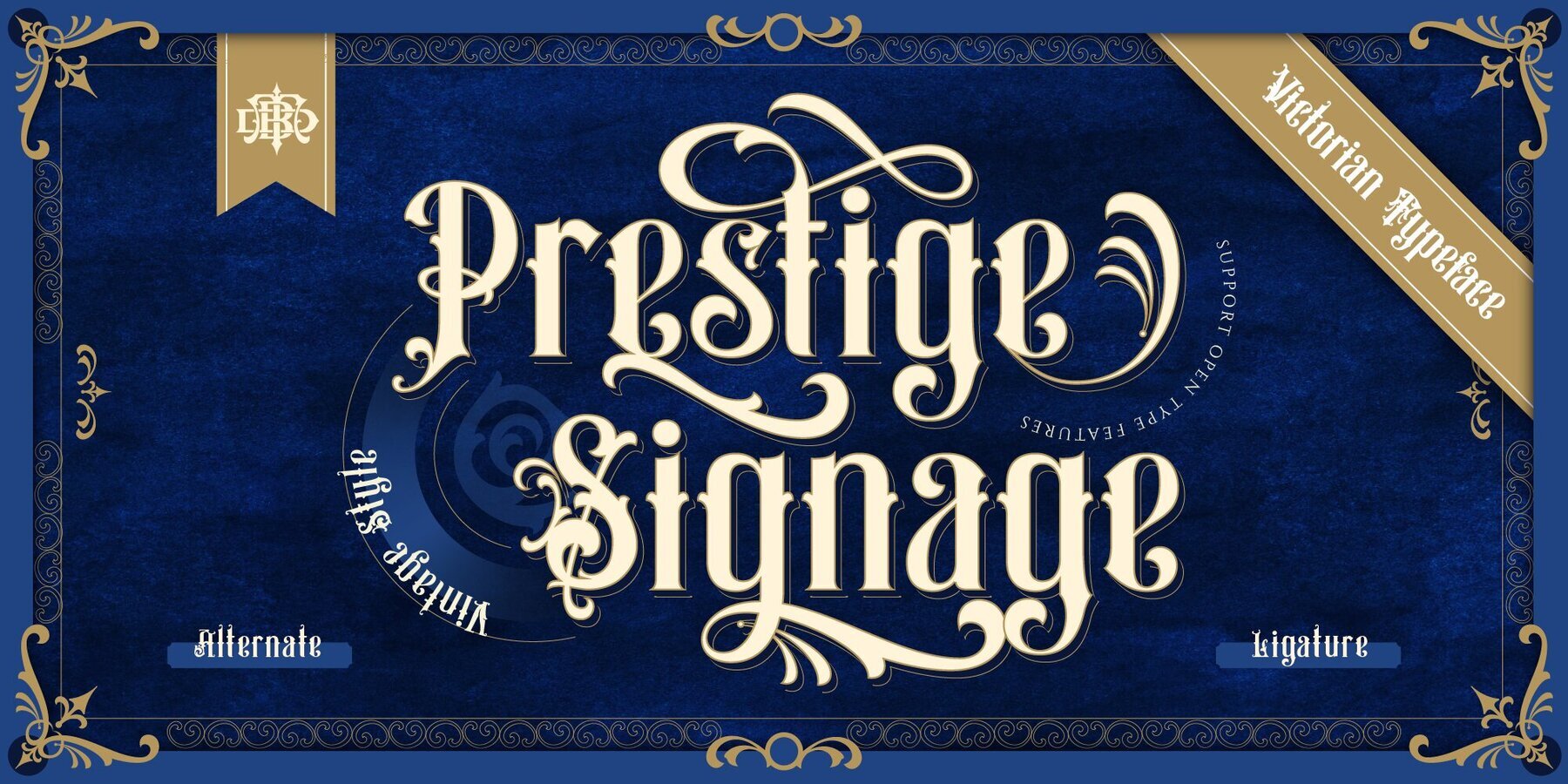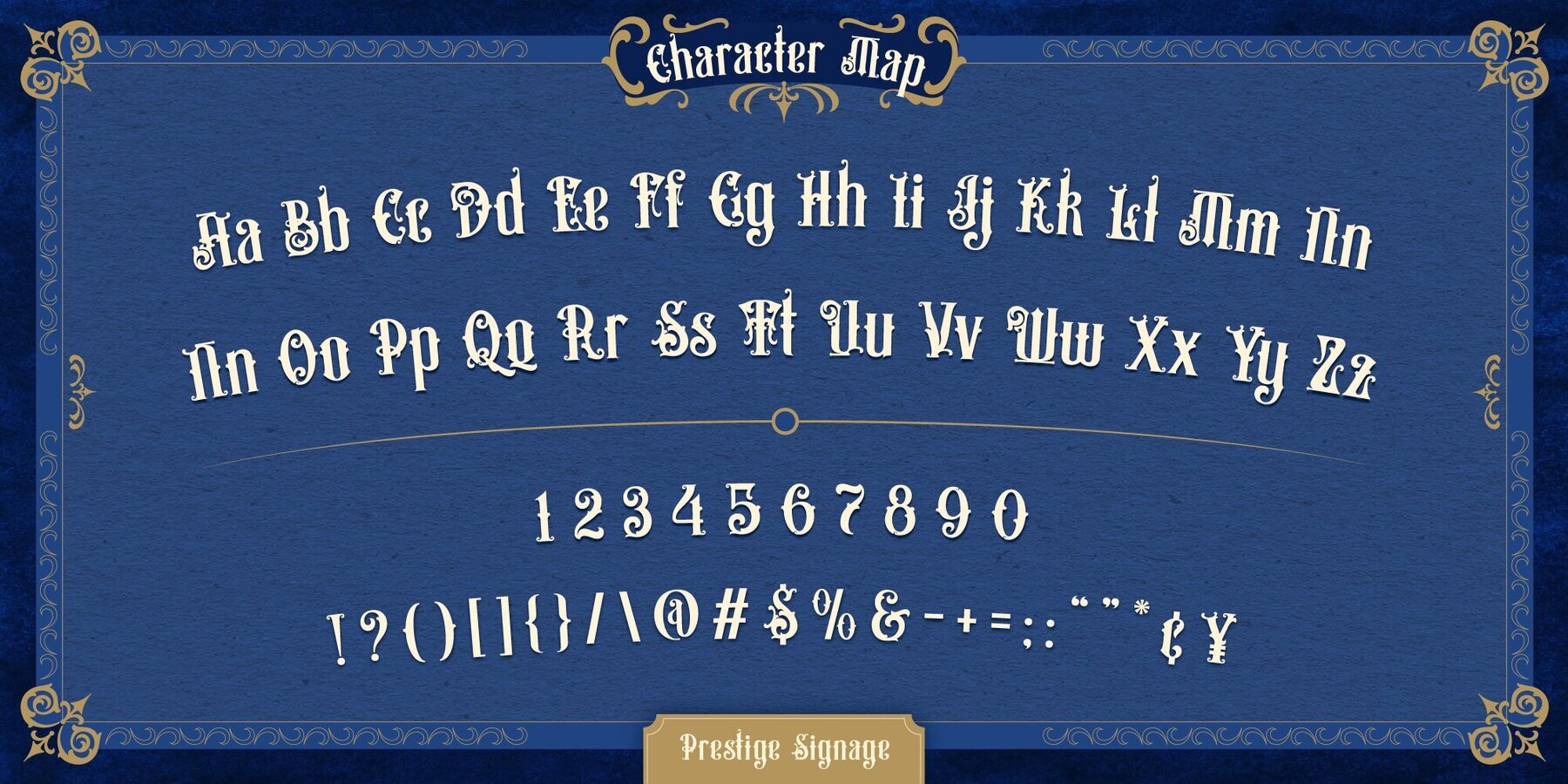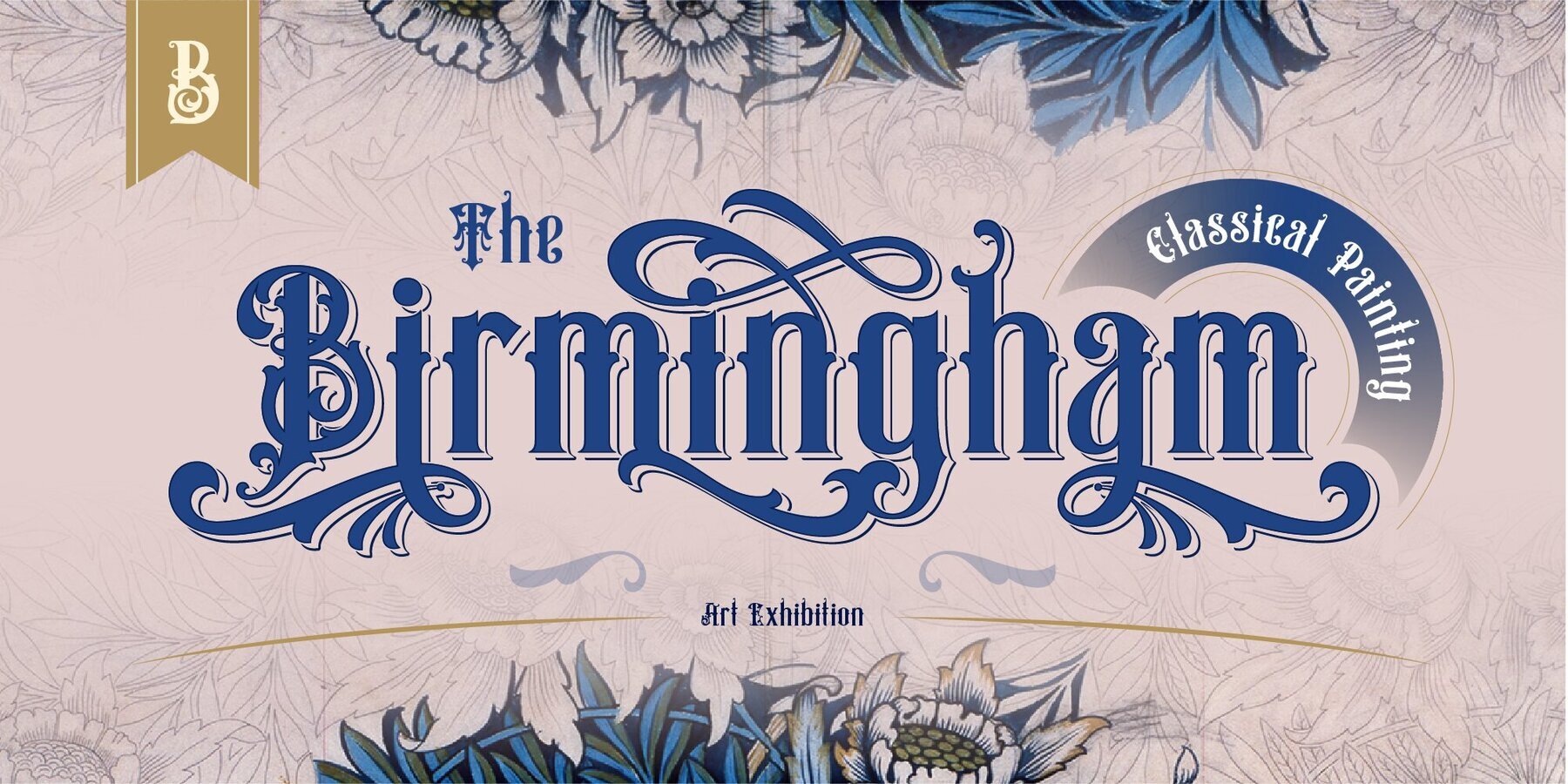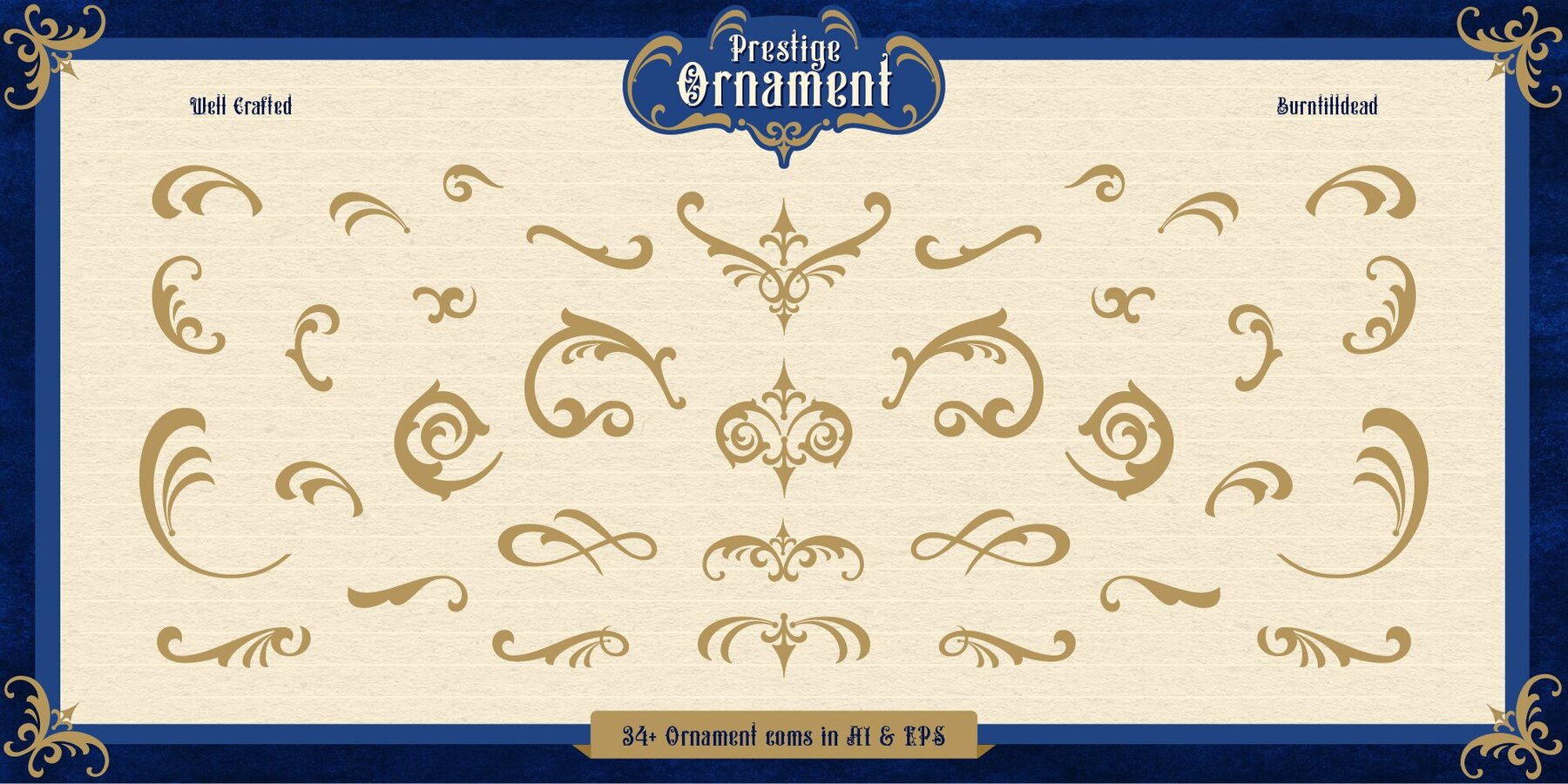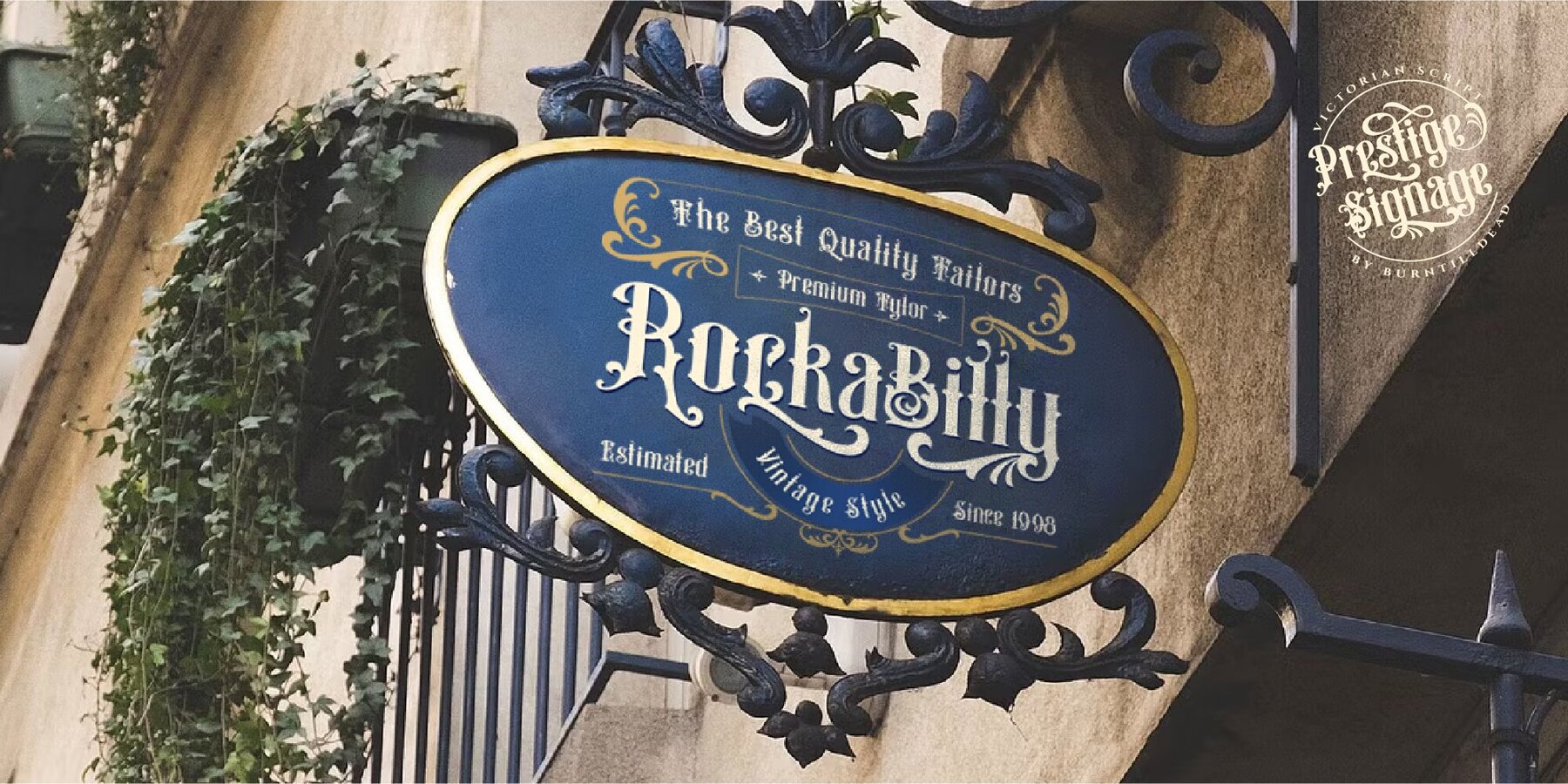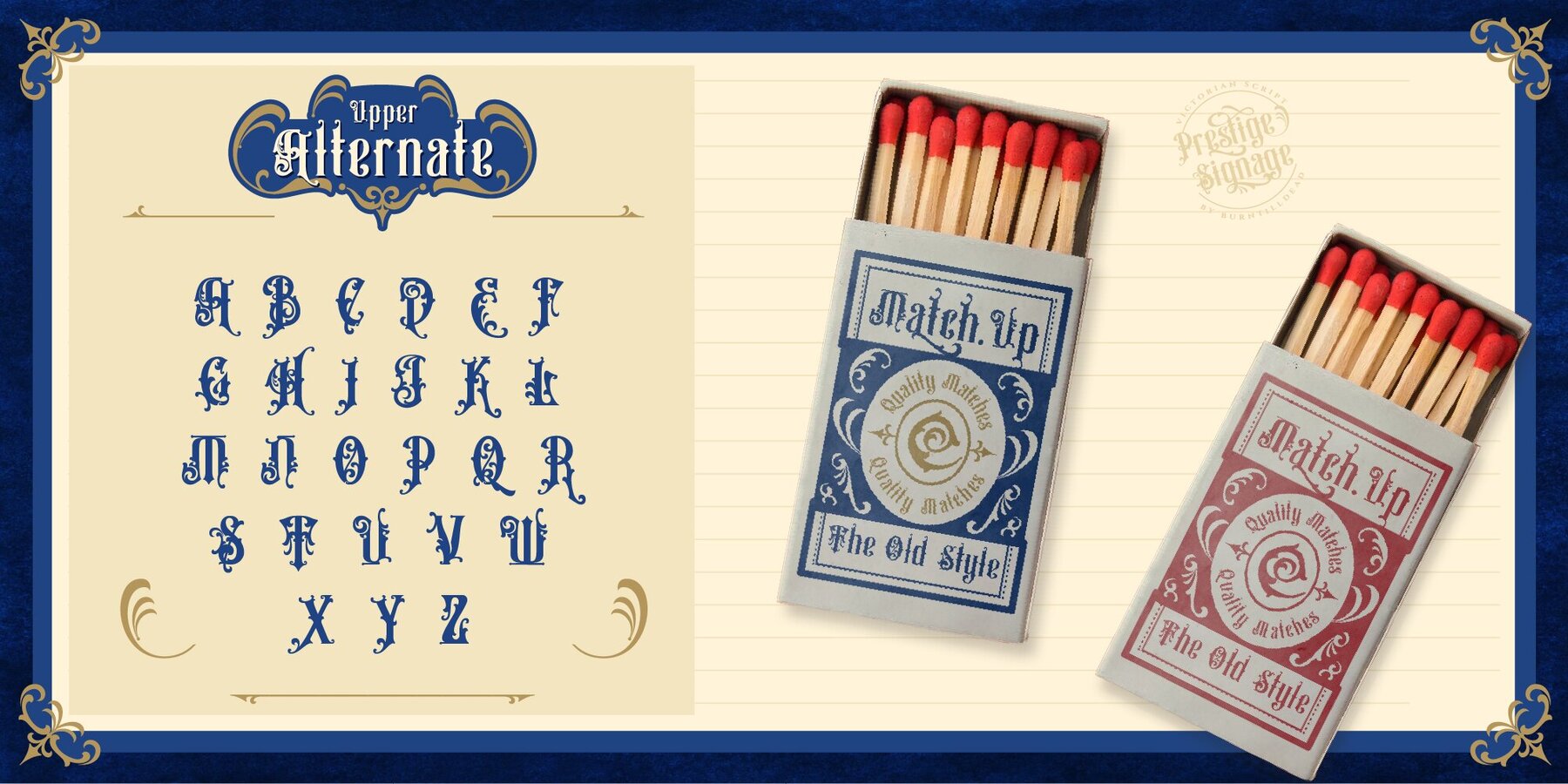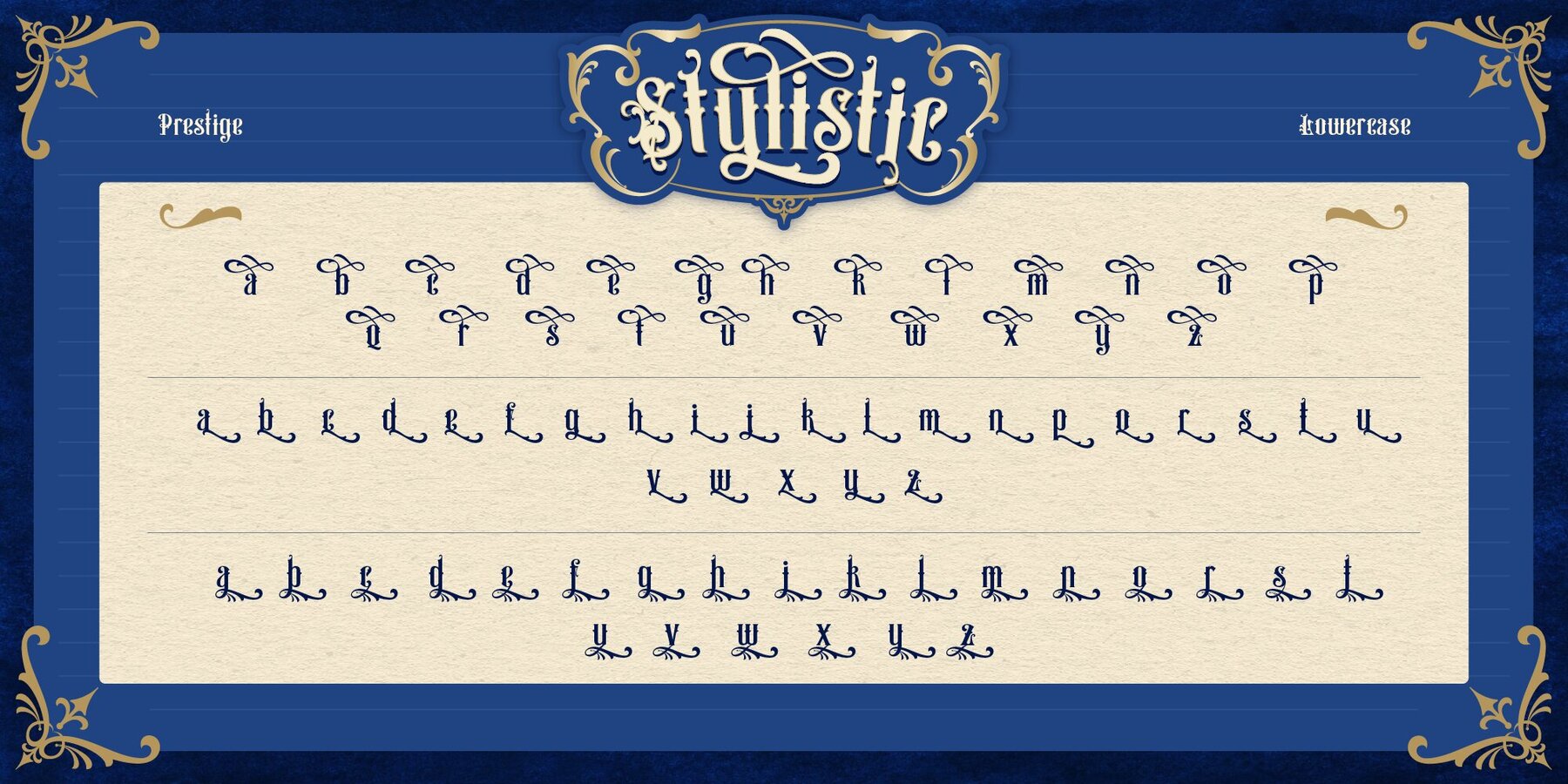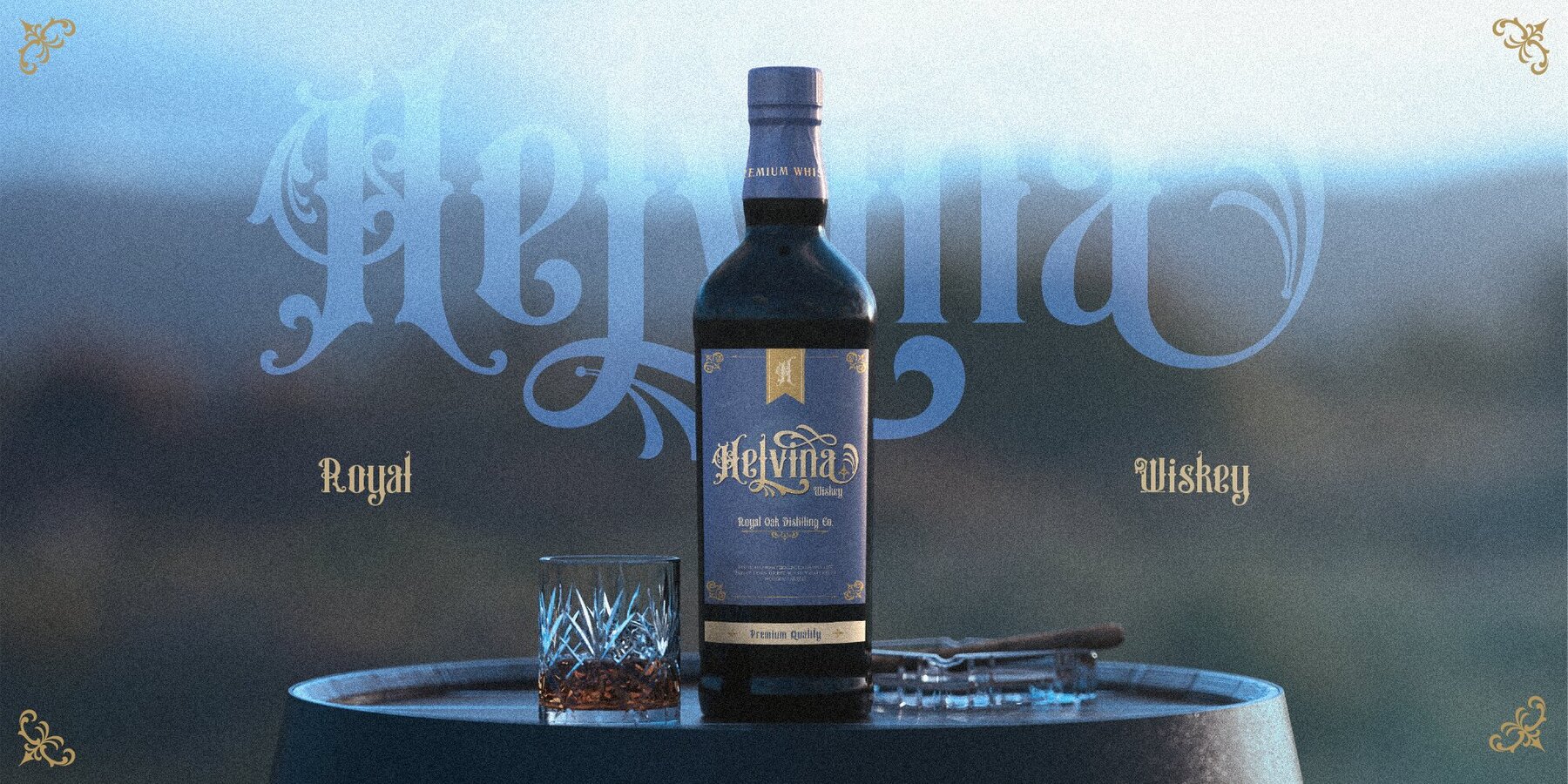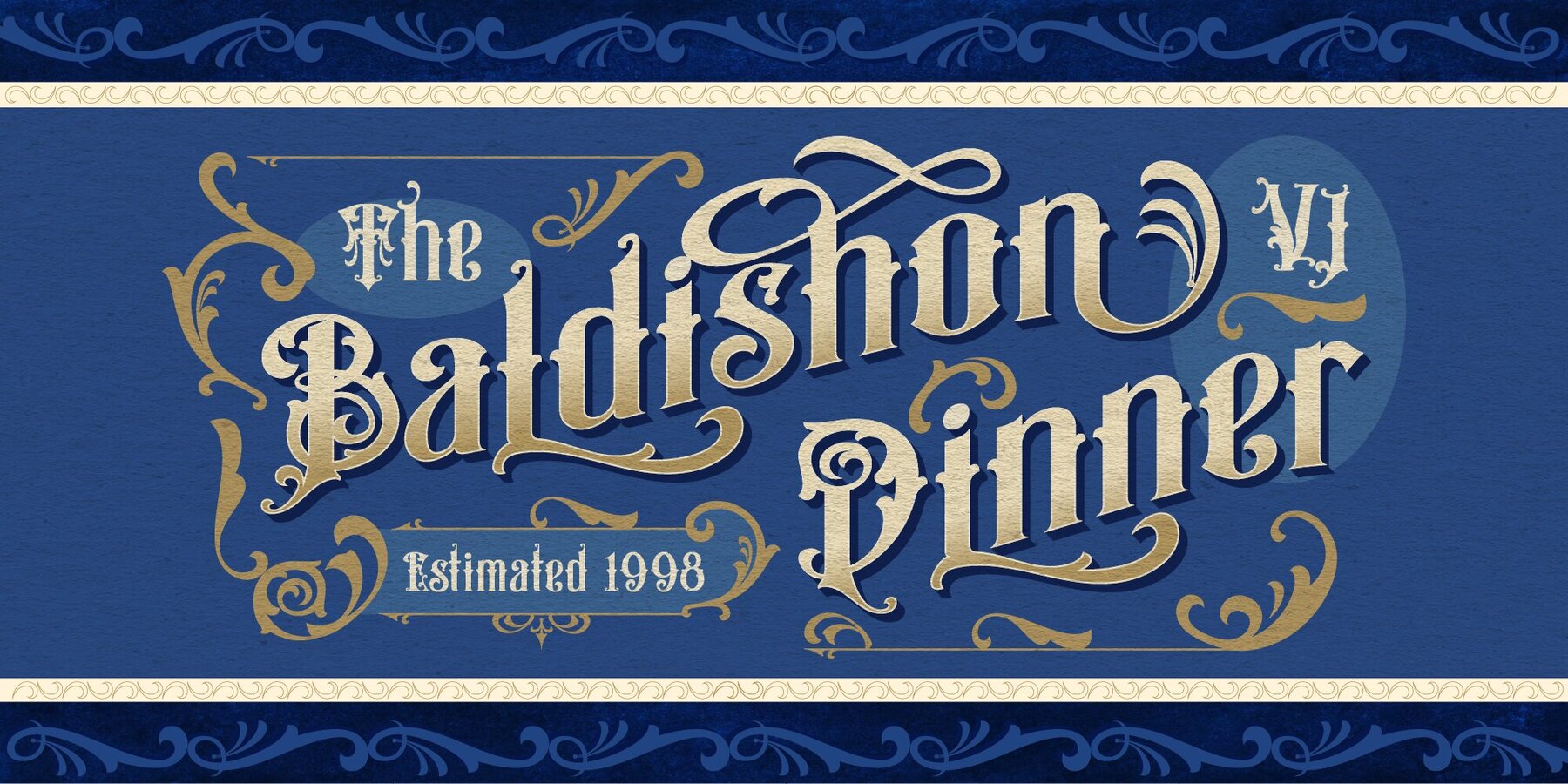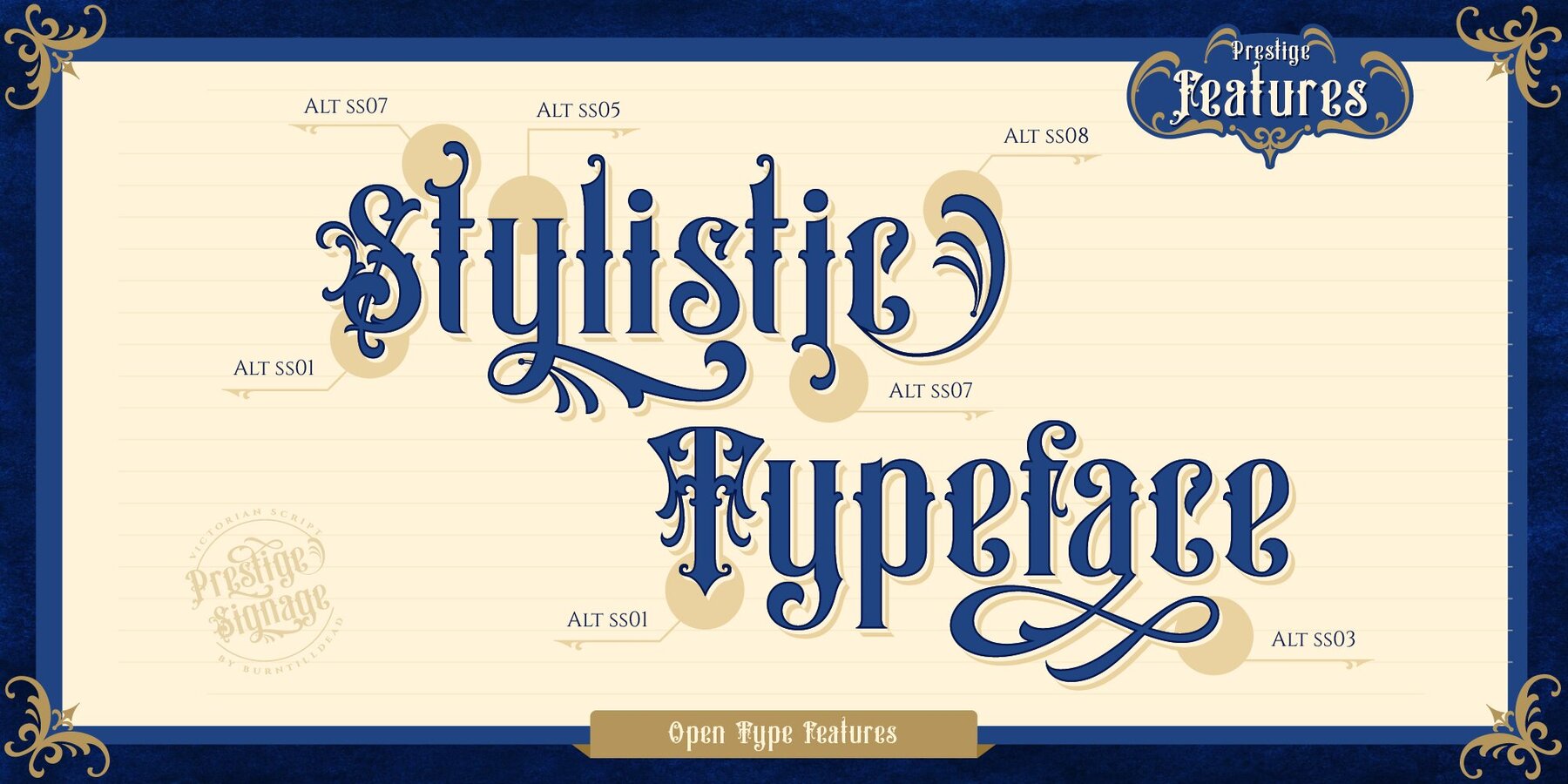
Prestige Signage Font
Prestige Signage Regular
Prestige Signage is a stylish serif font reminiscent of the Victorian era, offering both timeless elegance and distinction. It is the perfect choice for projects with a classic or vintage theme, such as brand labels, book covers, signage, and more. Designed to be captivating yet legible, this font includes eight unique alternates that allow you to effortlessly infuse your designs with a prestigious Victorian style.Prestige Signage: Elegant Serif Inspired by the Victorian Era